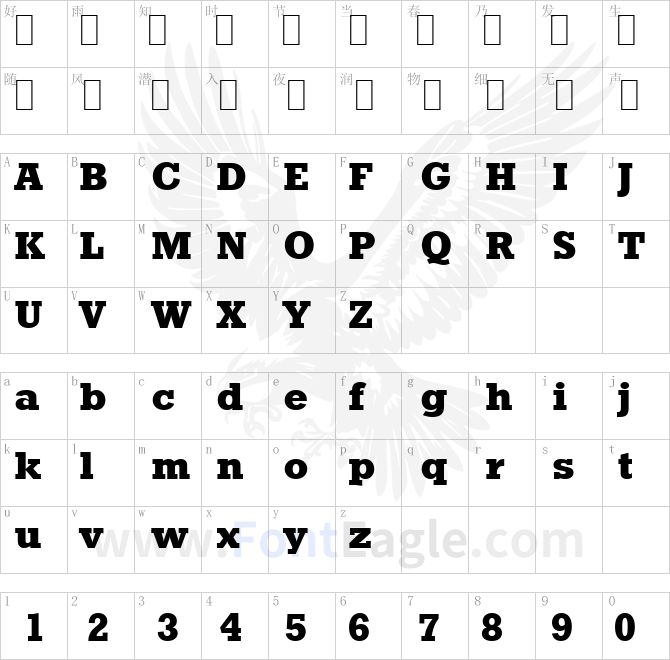
- Font name:Stafford-Serial-ExtraBold
- Font Subfamily ID:Alts:Stafford-Serial-ExtraBold-Regular
- Font Full Name:Stafford-Serial-ExtraBold-Regular
- Font Version:1.0 Thu Oct 17 21:49:18 1996
- Postscript:Stafford-Serial-ExtraBold-Regular